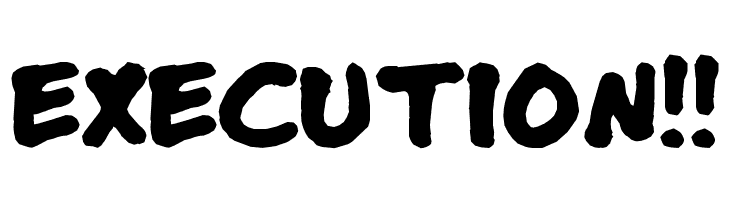
StayHomeScriptPERSONAL-Reg Font
- Font: StayHomeScriptPERSONAL-Reg
( Fonts by Dibujado )
A bold, playful, hand-drawn font with a friendly and energetic style.